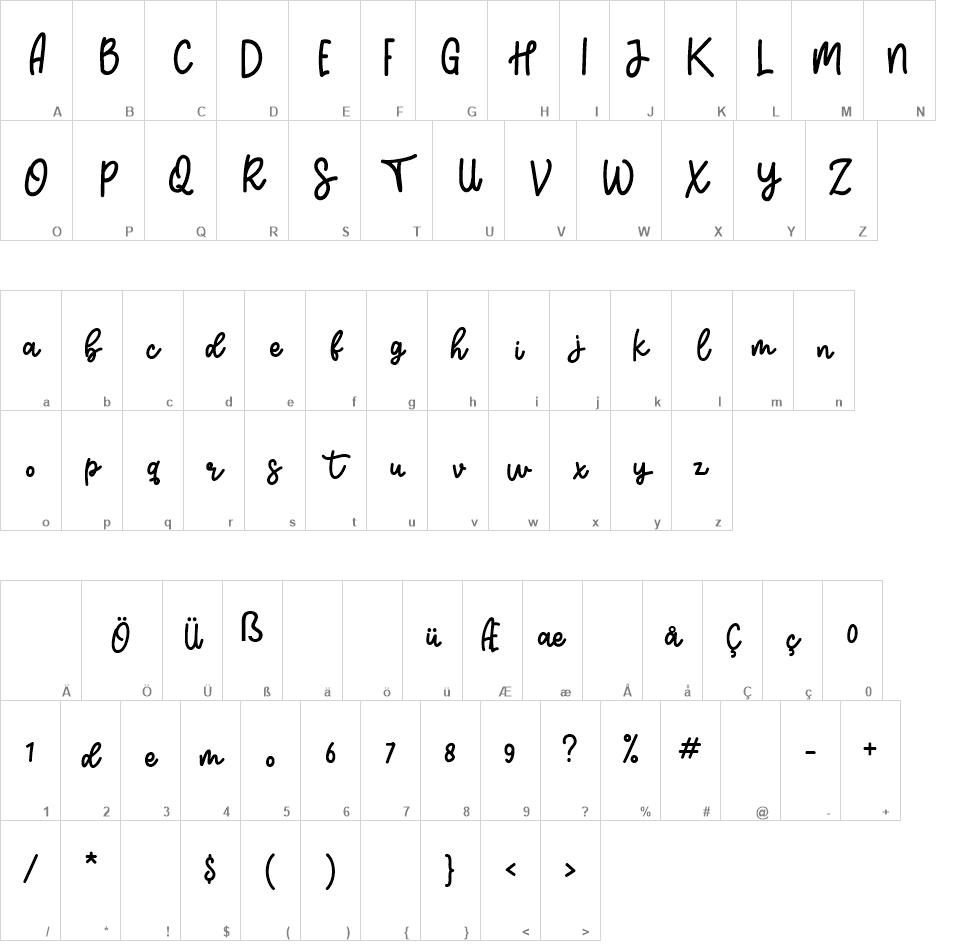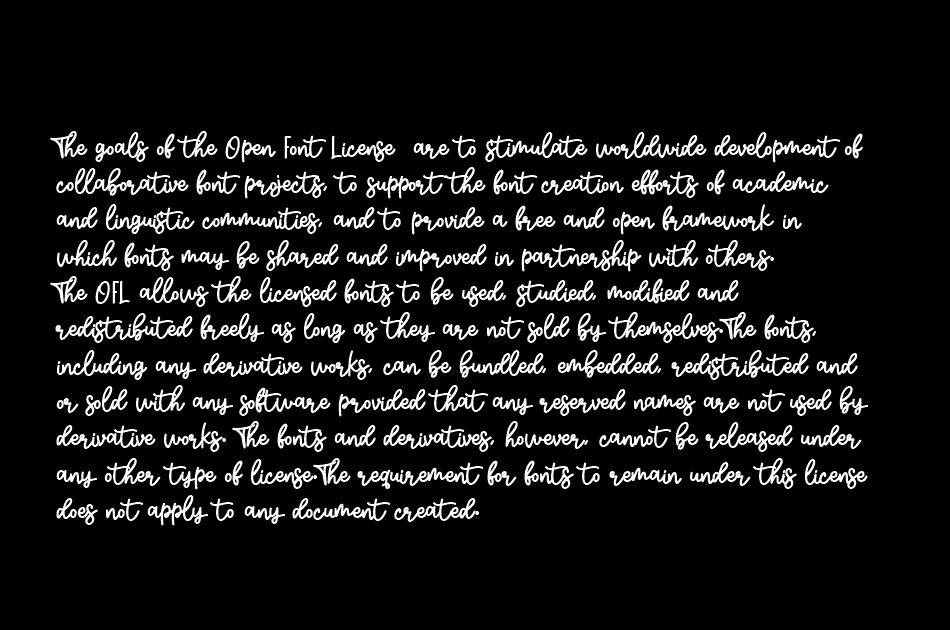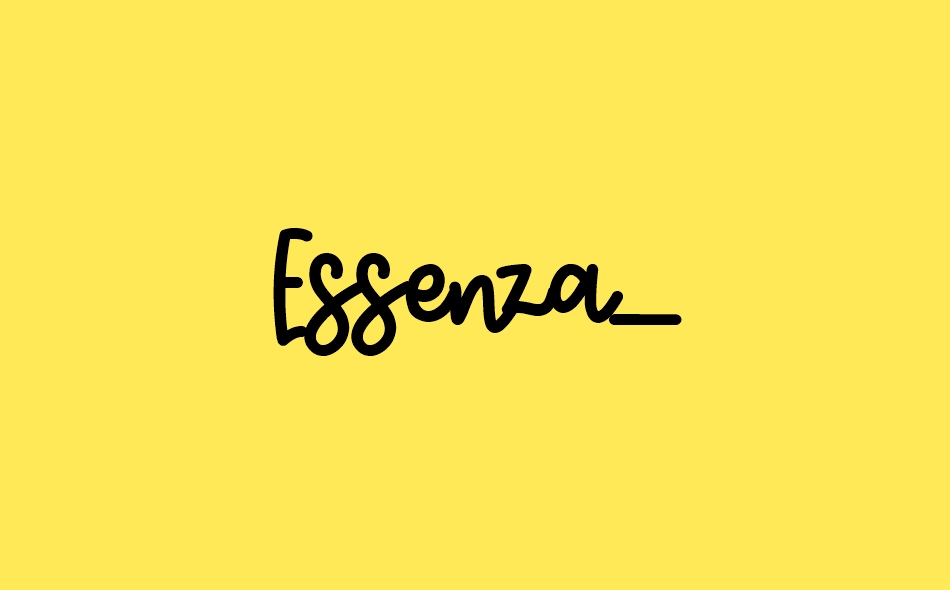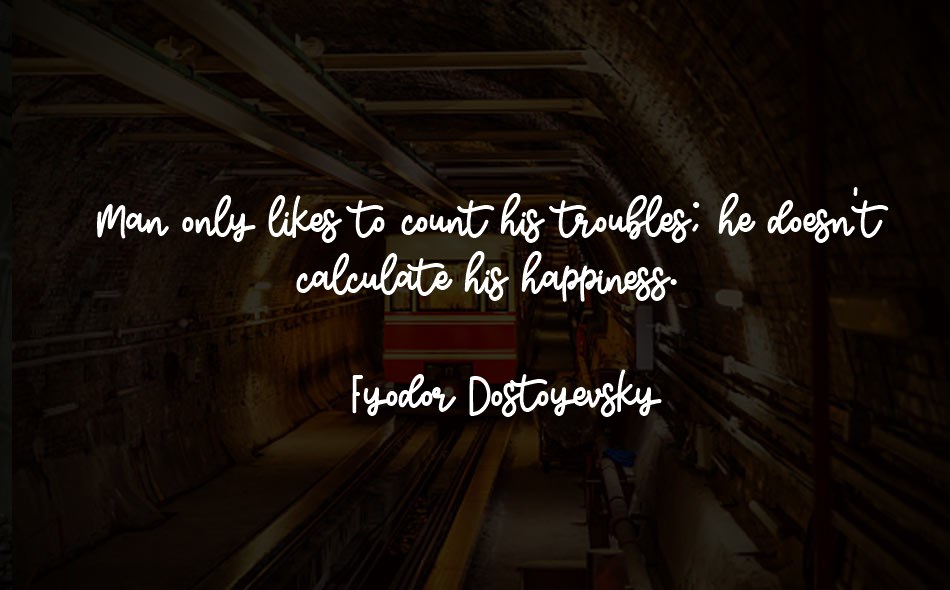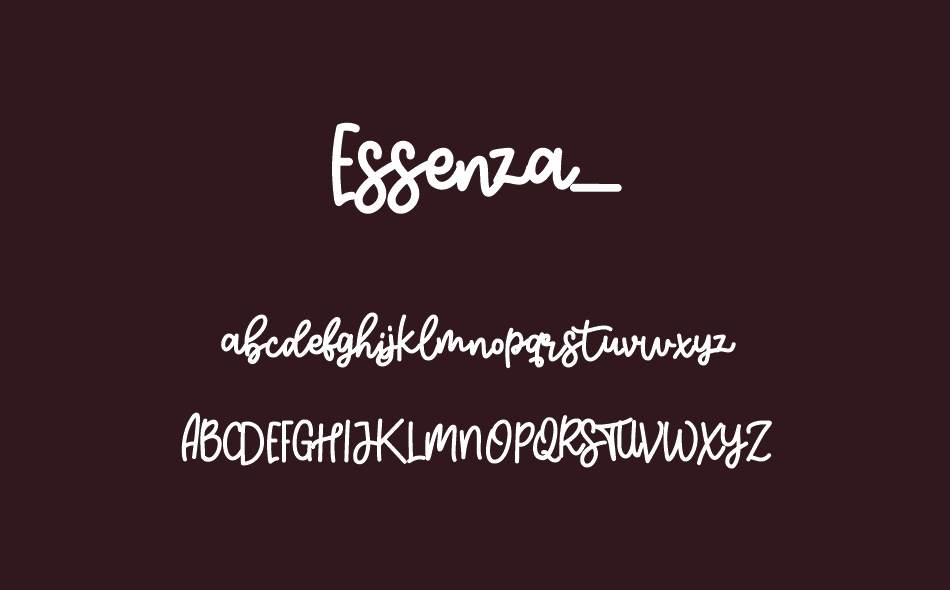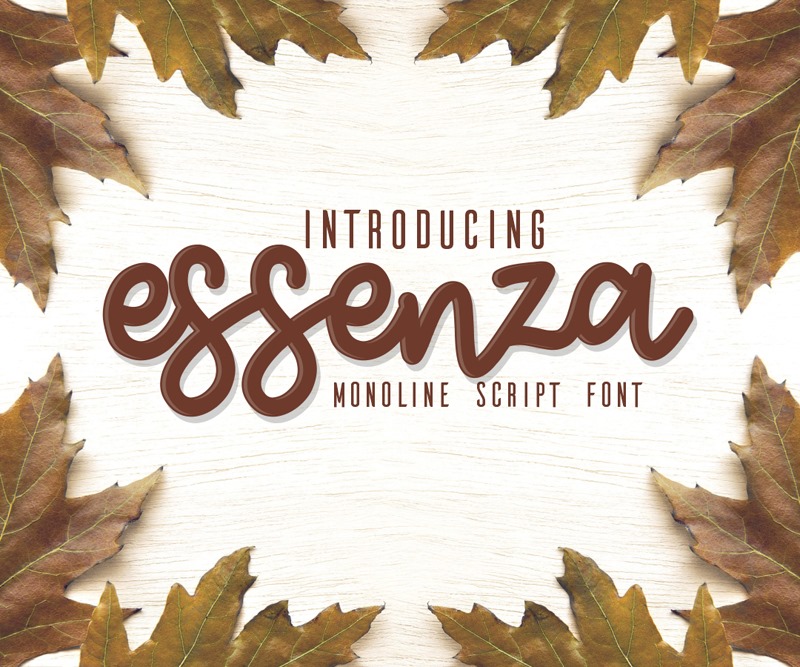
Essenza font
Essenza is a handwriting font with monoline script style, Essenza clean lines and sharp edges make it a perfect script fonts for weddings.